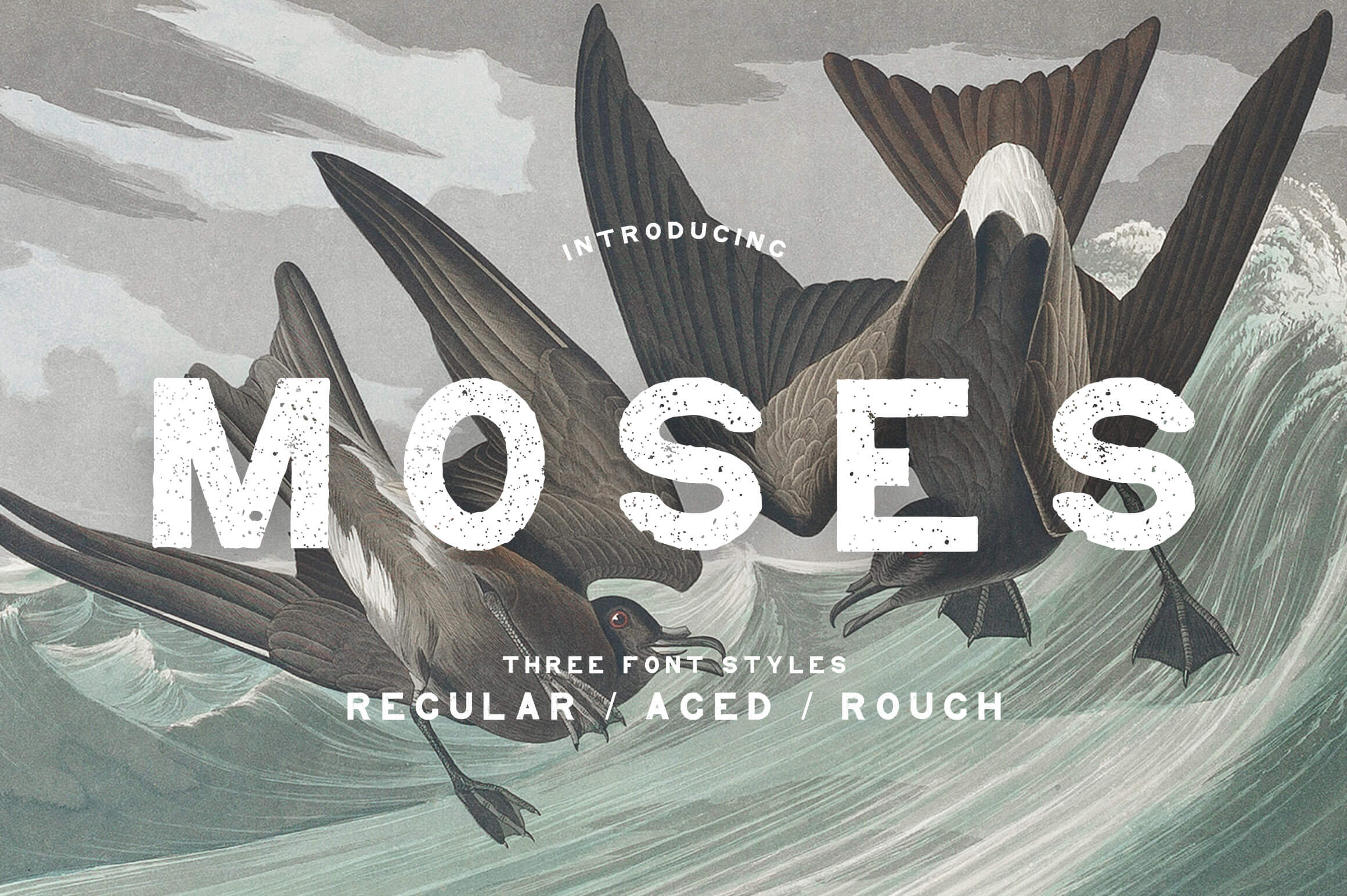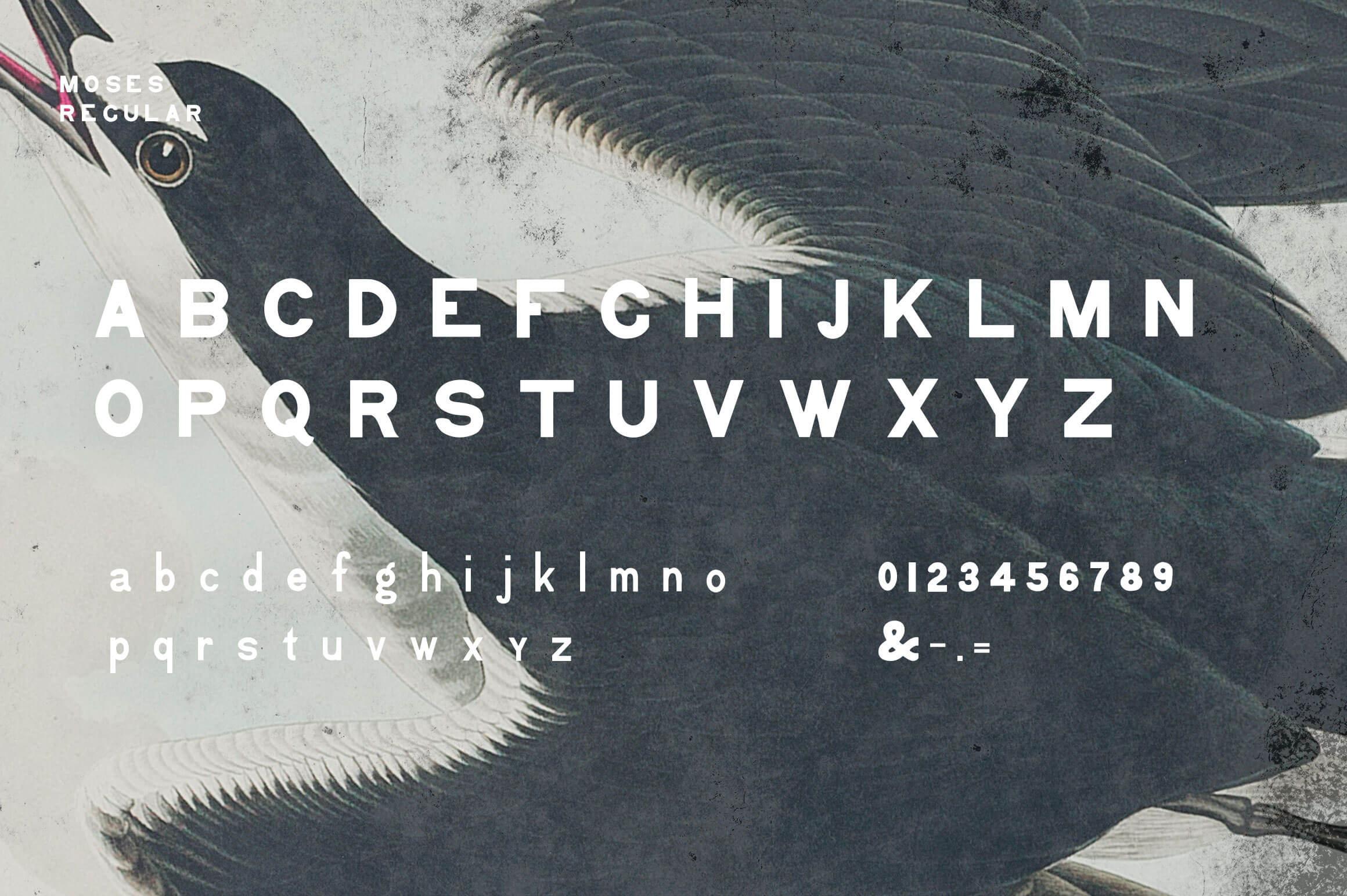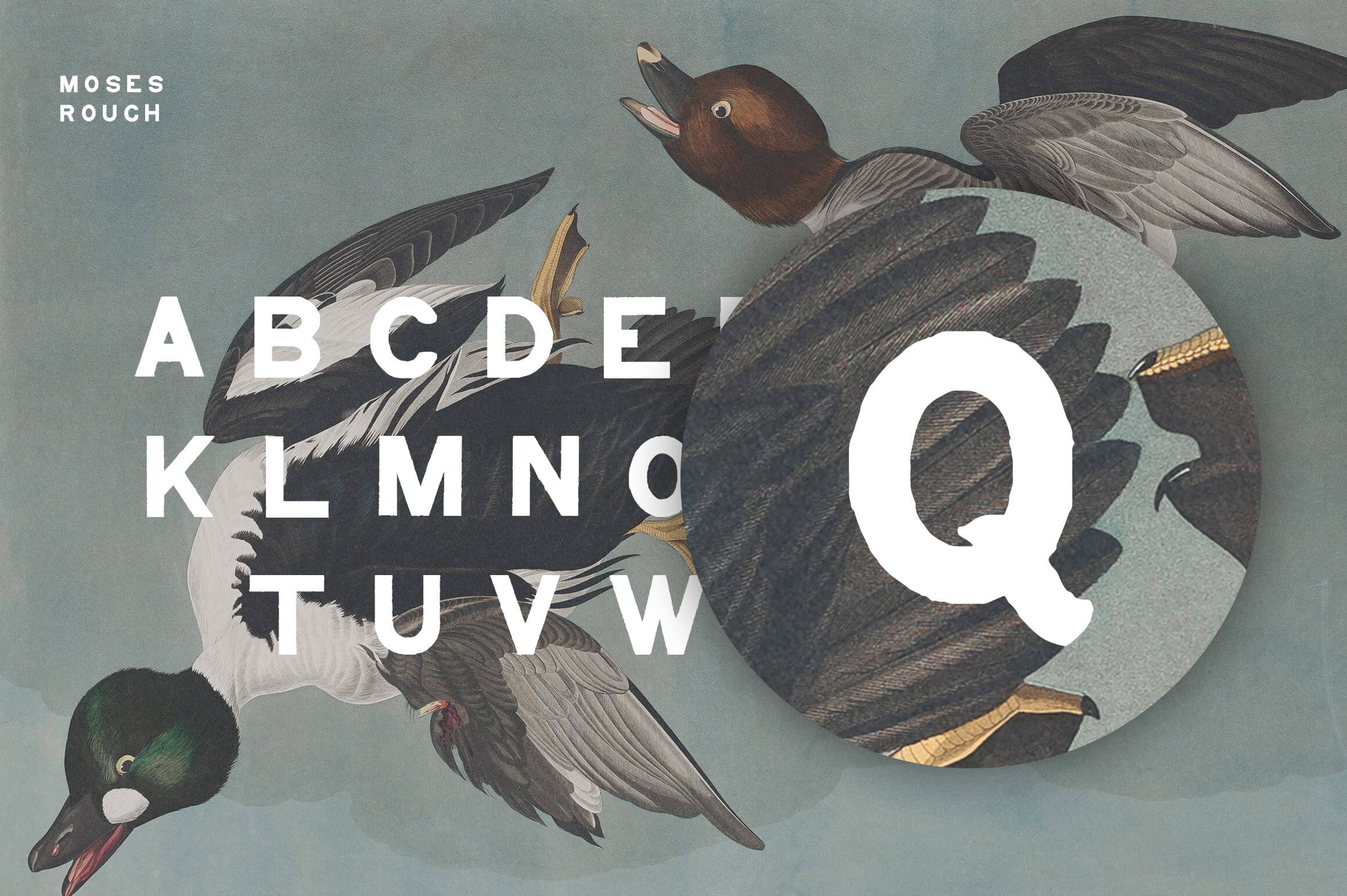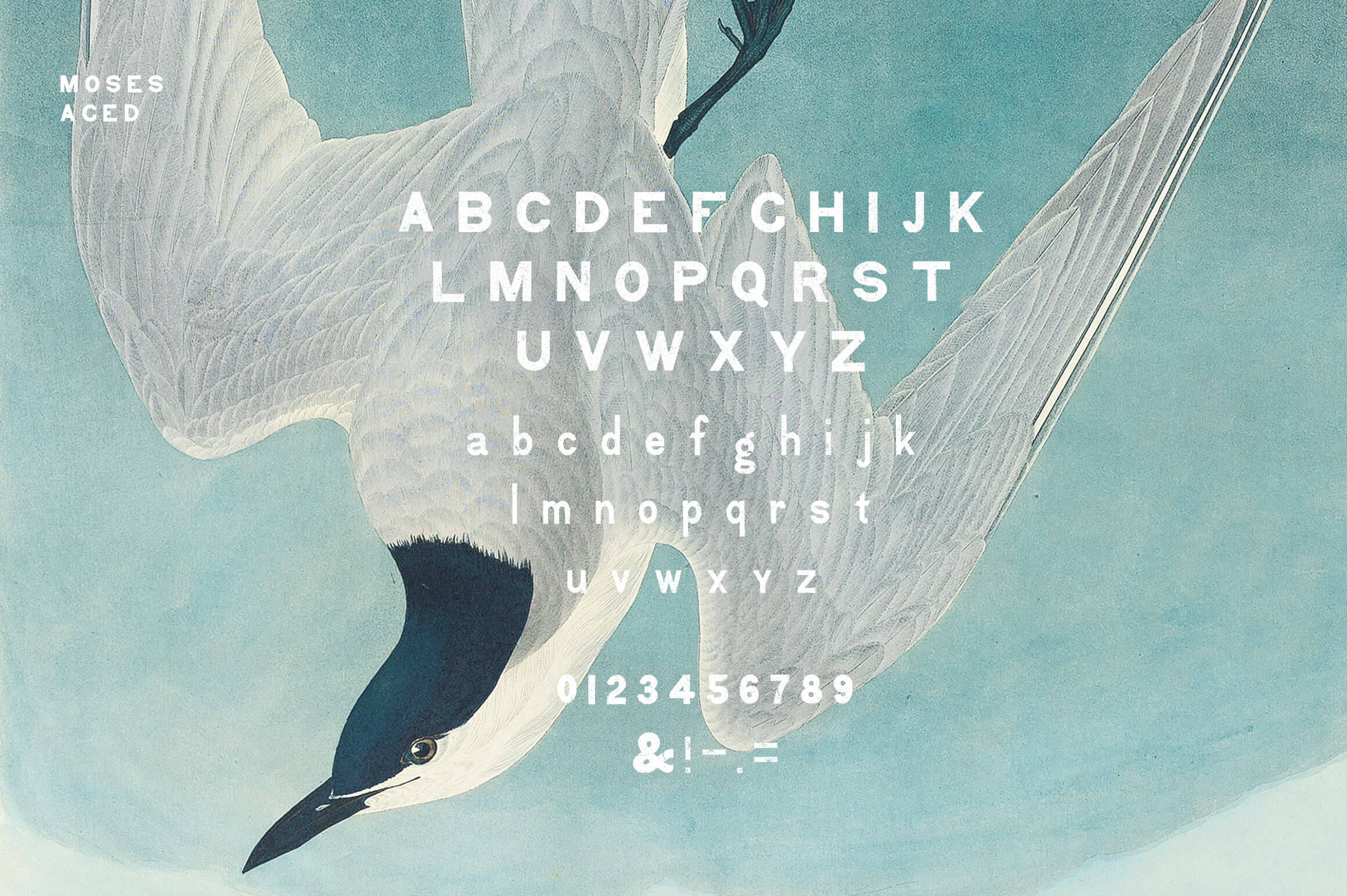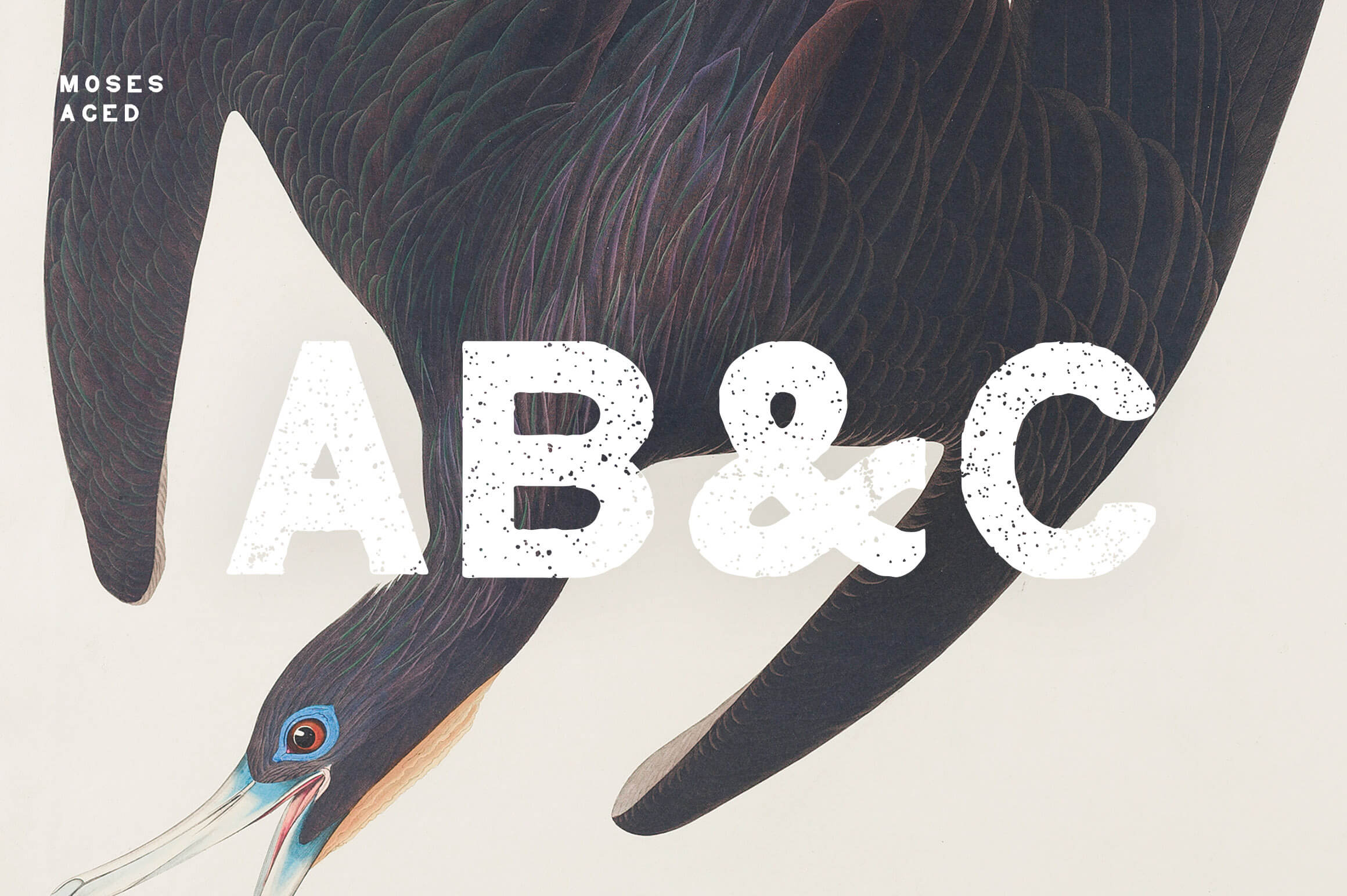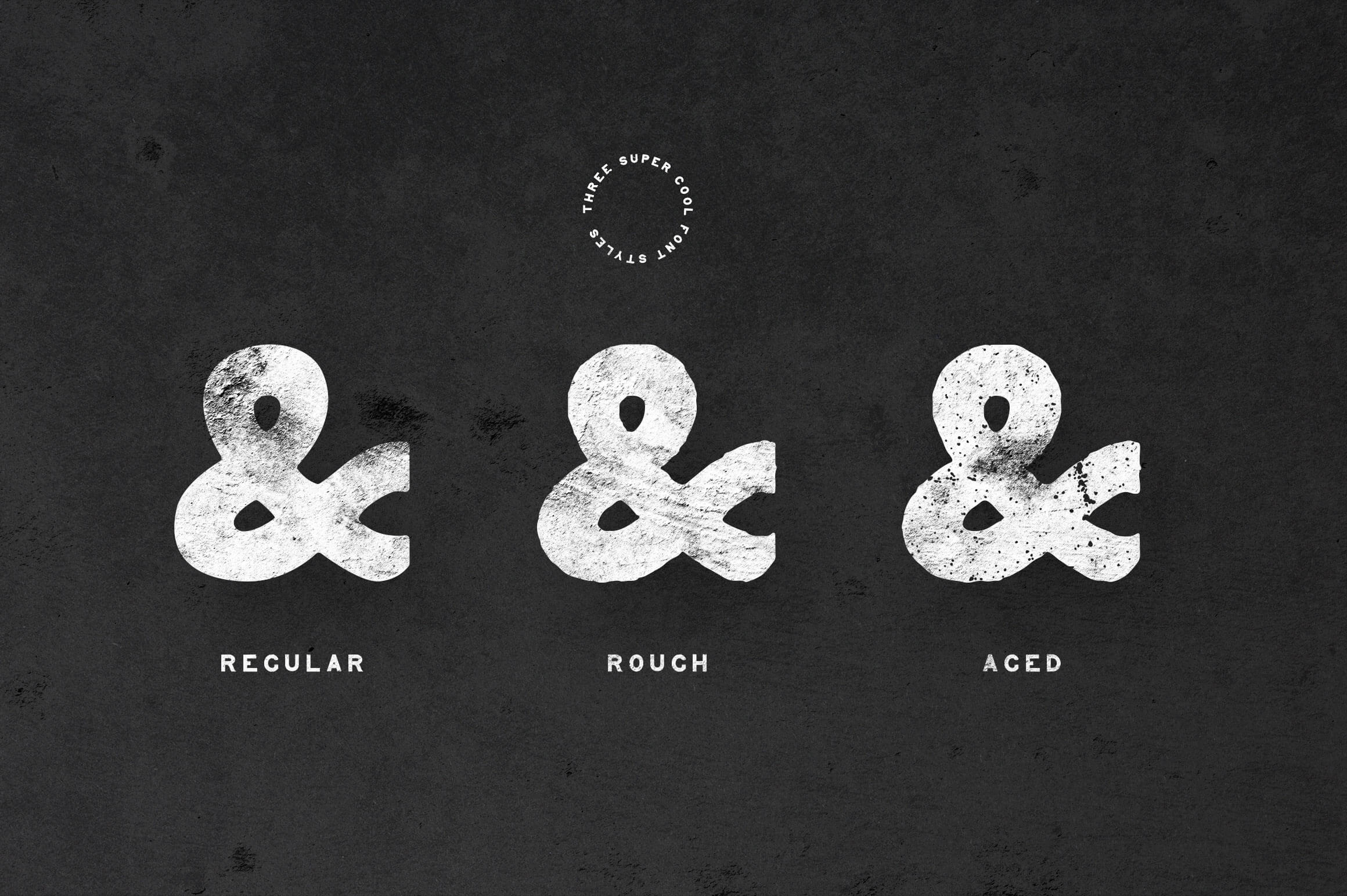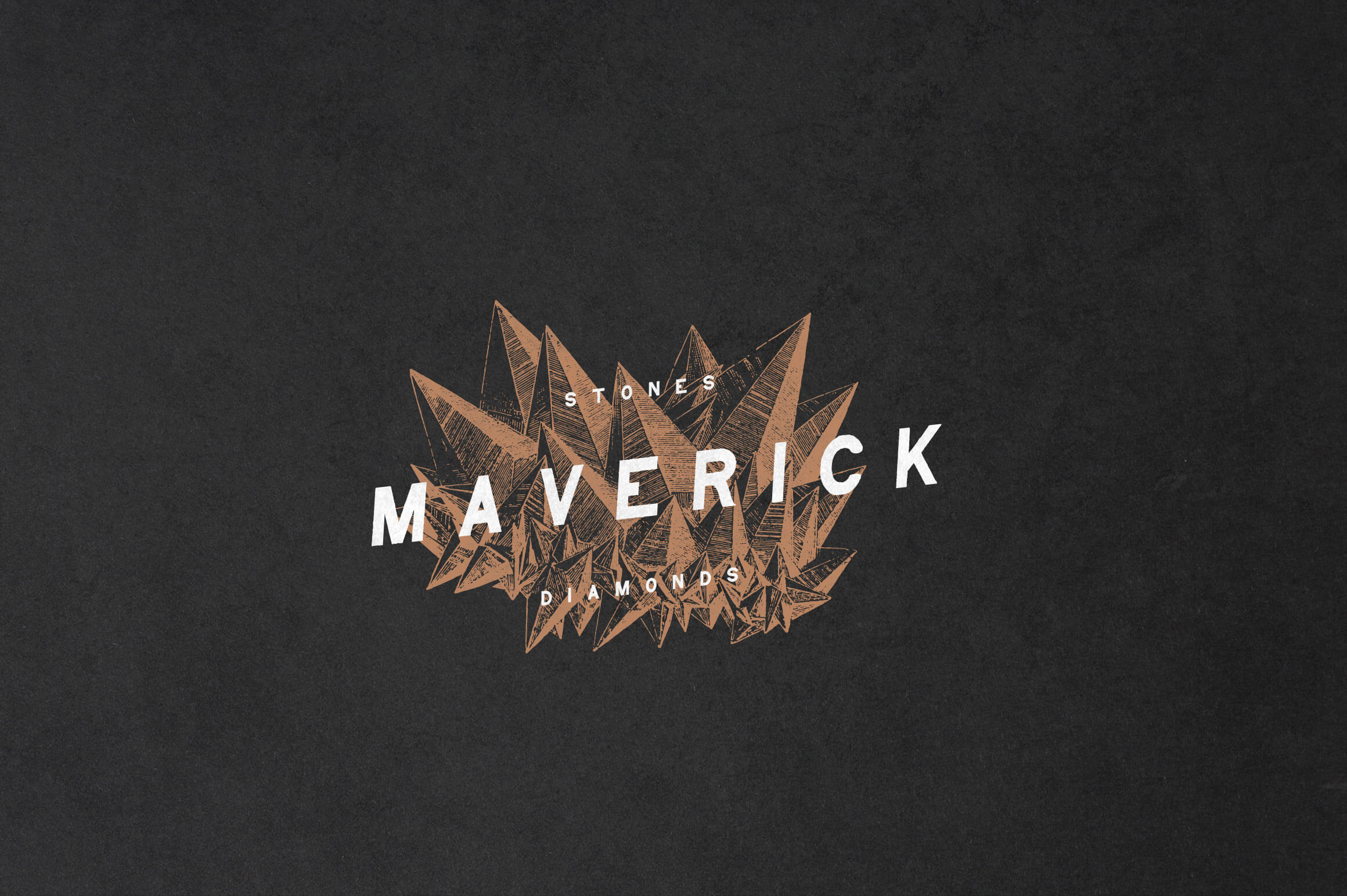
Moses Display Grotesque Typeface
Introducing
Moses — Display Grotesque Typeface created by Nomad Visuals
3 styles — REGULAR – ROUGH – AGED
Moses is an Egyptian grotesque style font. Archeologists from the early 1800s, fascinated by the recent discoveries from ancient Egypt explorations, named this font style ‘Egyptian’ because the bold, chunky shapes that reminded them of the heavy stone slabs found in pyramids and other buildings.
This font style is intended as a pure display font, and performs at its best in headlines and big titles, it does an amazing job in logo design, brands and labels. It’s perfect to give a unique vibe to your digital products and websites.
The font includes numbers and a limited set of punctuation, its main use being intended for branding and logos.